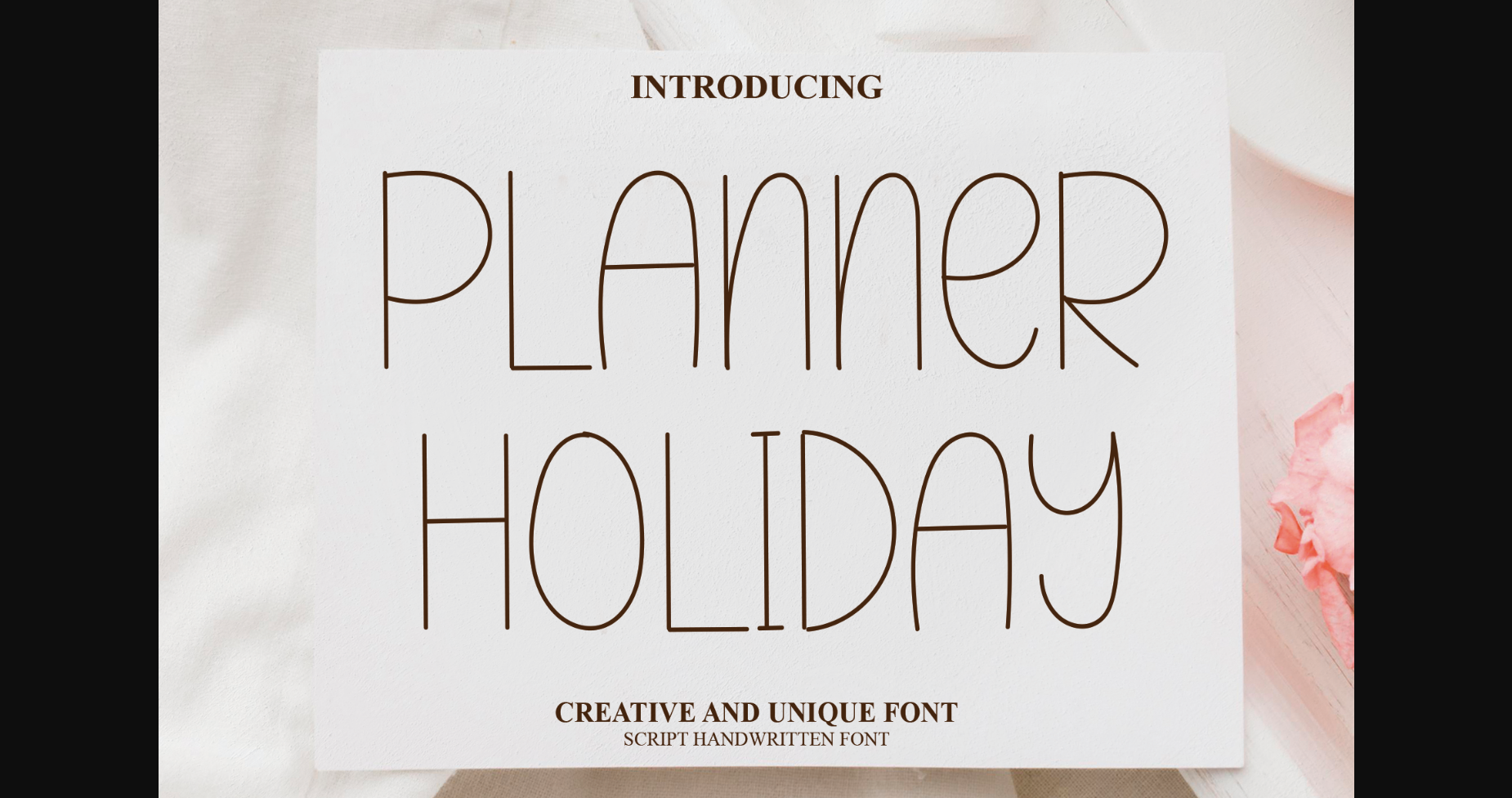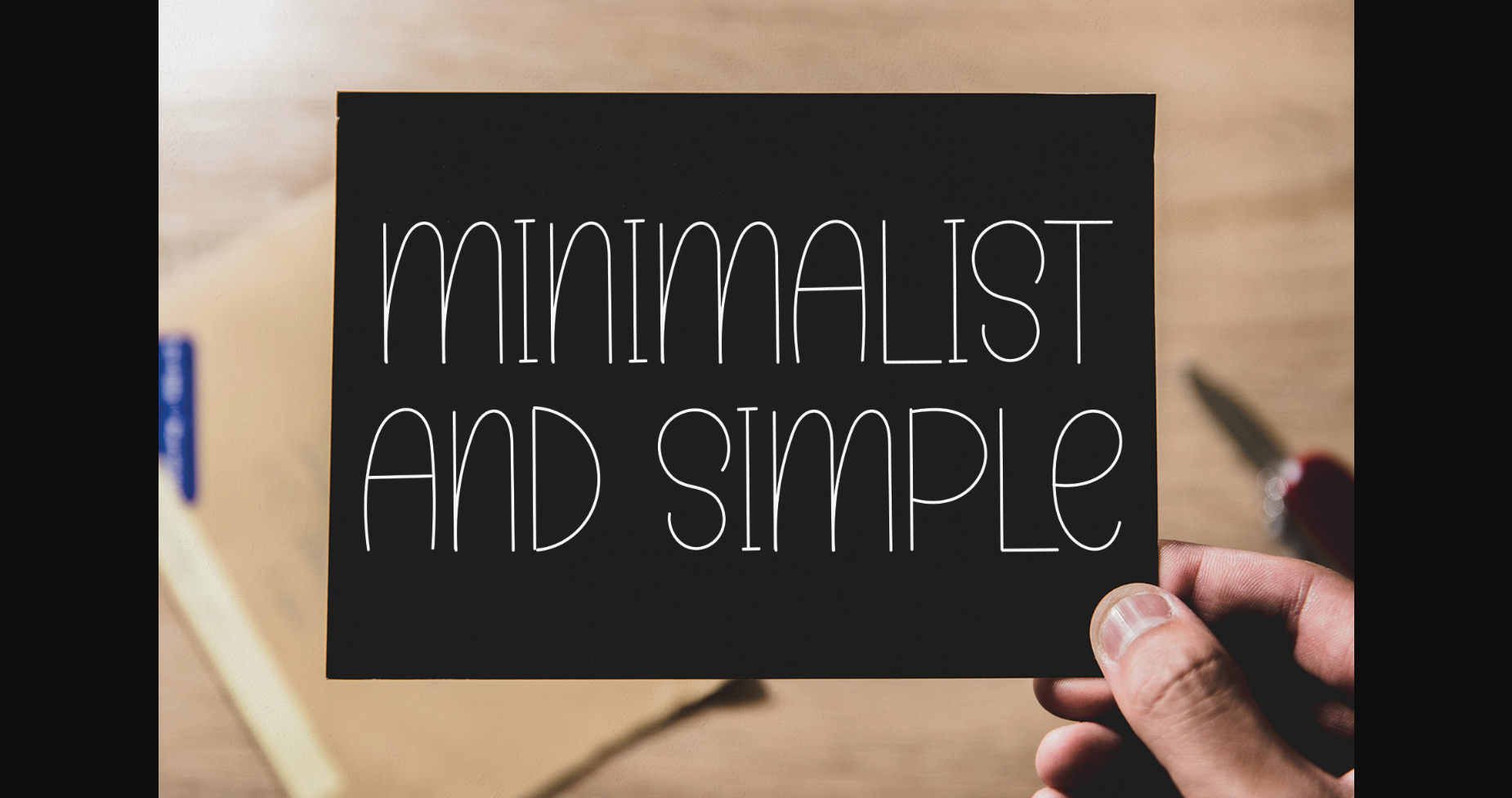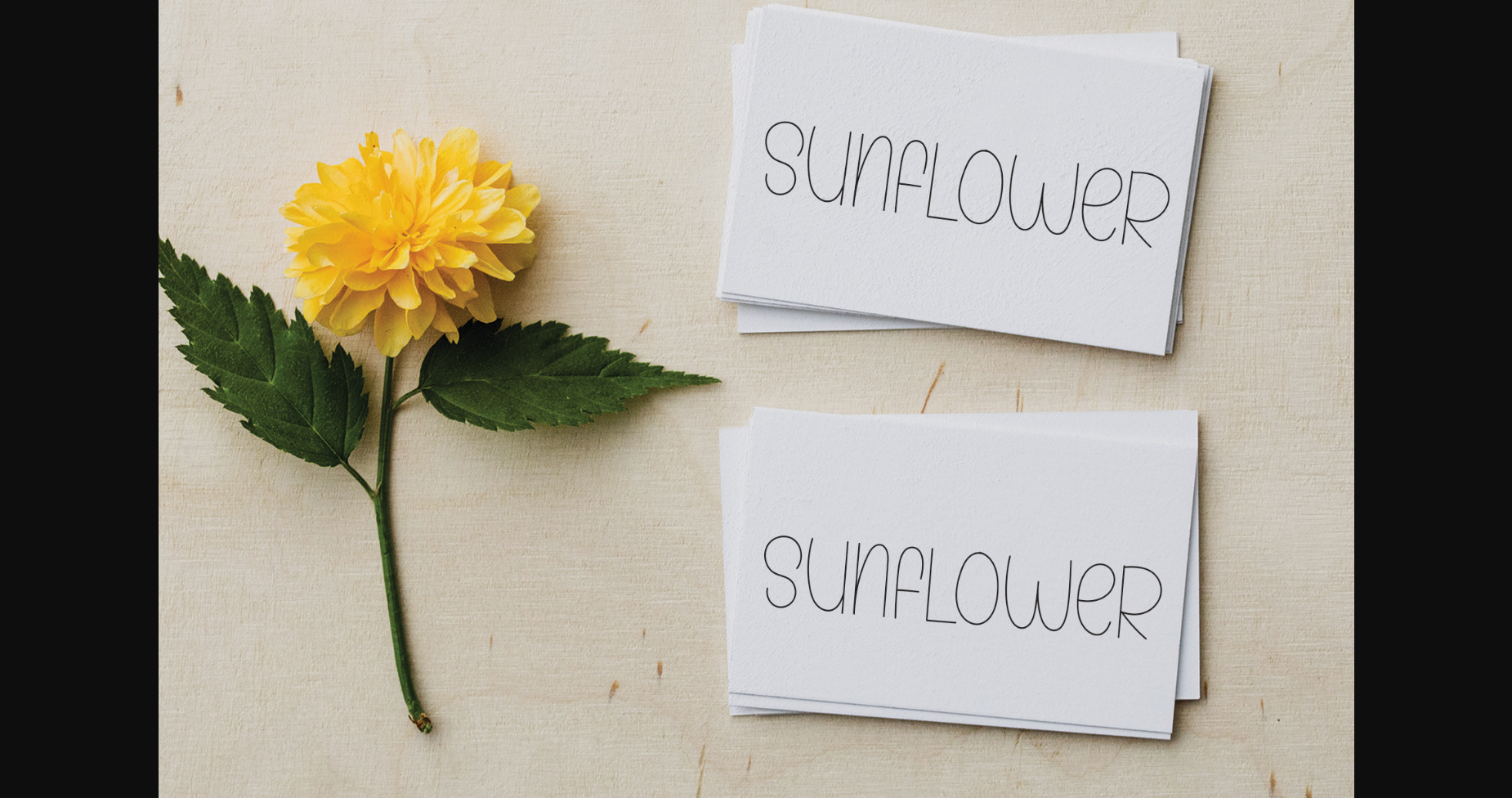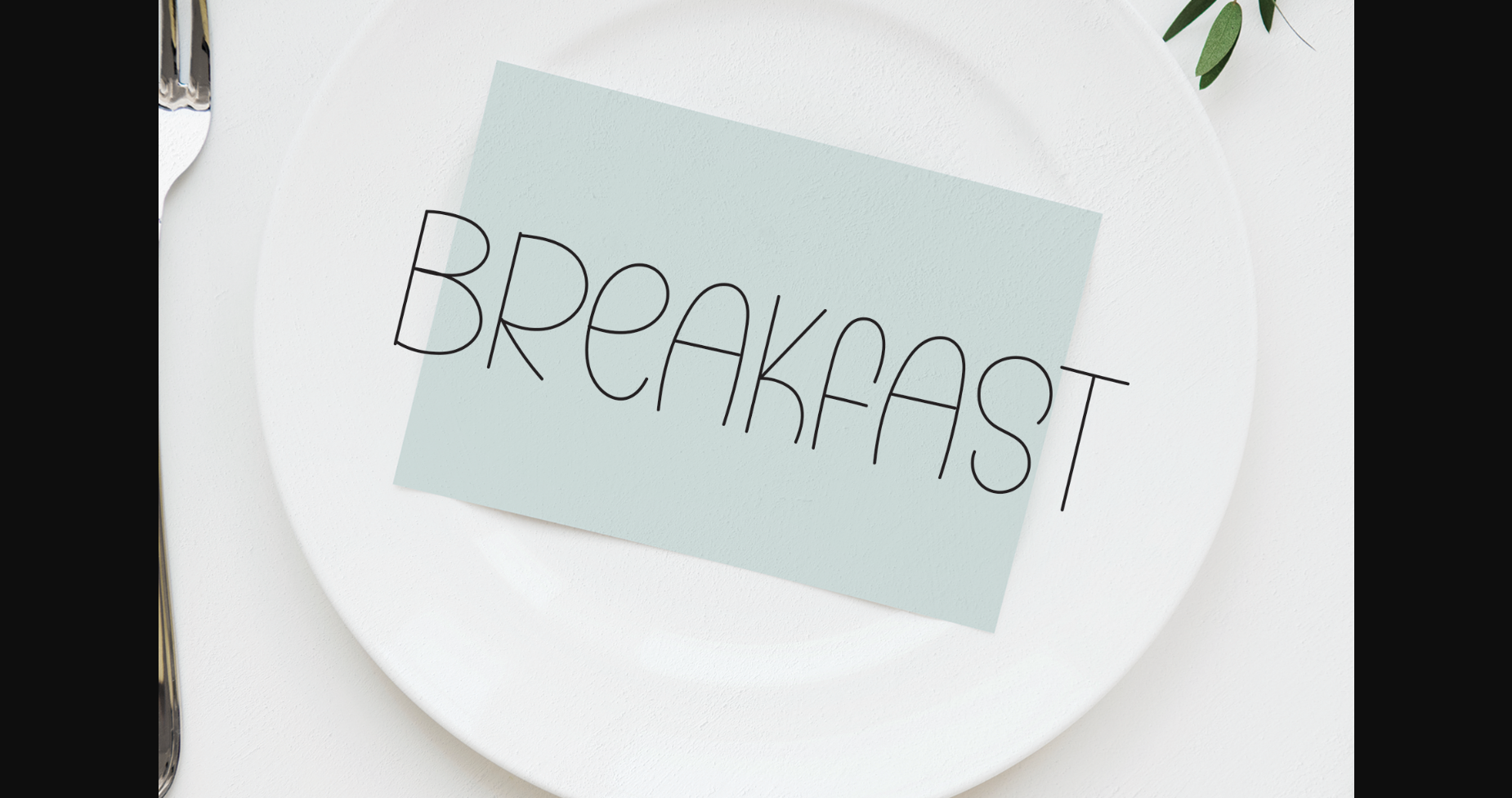
About Planner Holiday Font
Planner Holiday is a beautiful and neat sans serif font, perfect for making your designs stand out from the rest. The characters are perfect for wall hangings, wedding invitations, social media post logos, advertisements, product packaging, product designs, labels, photography, and any project that requires modern typography.